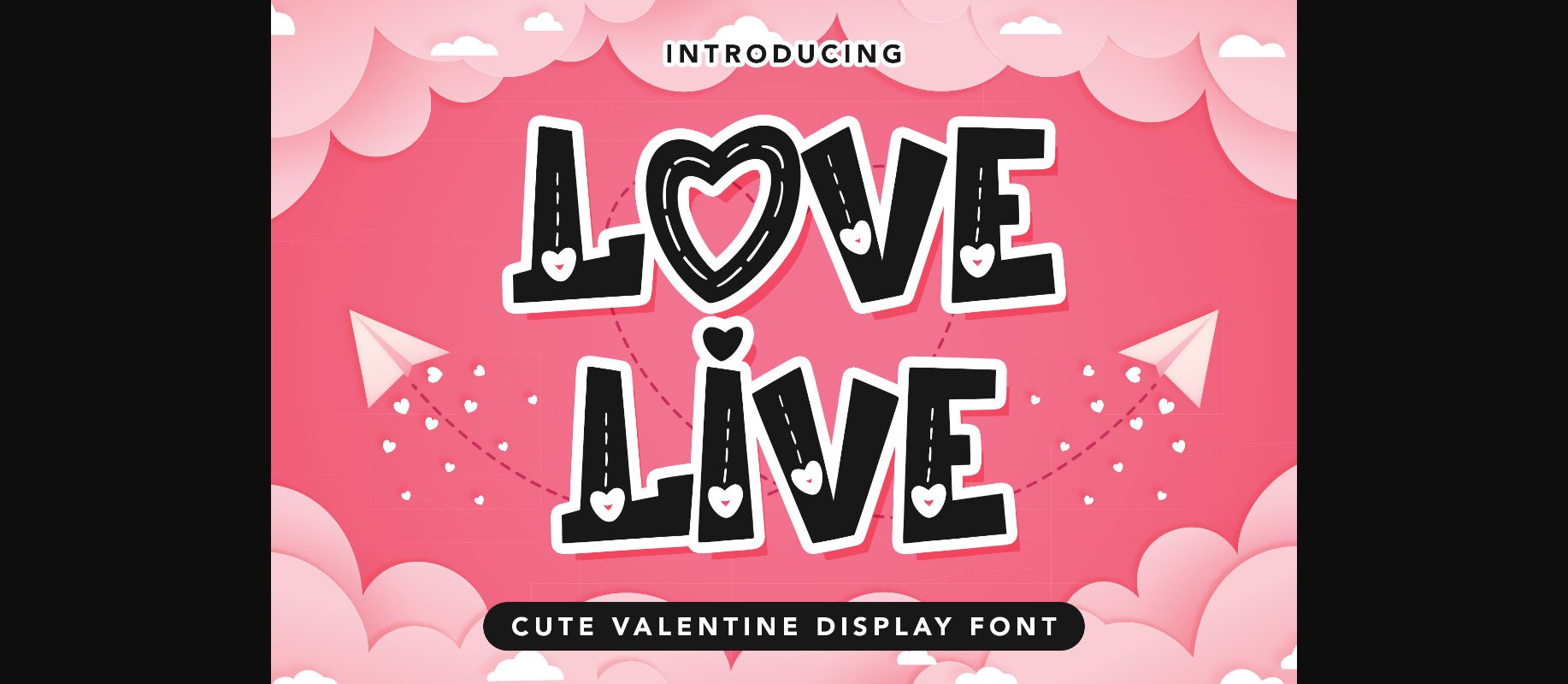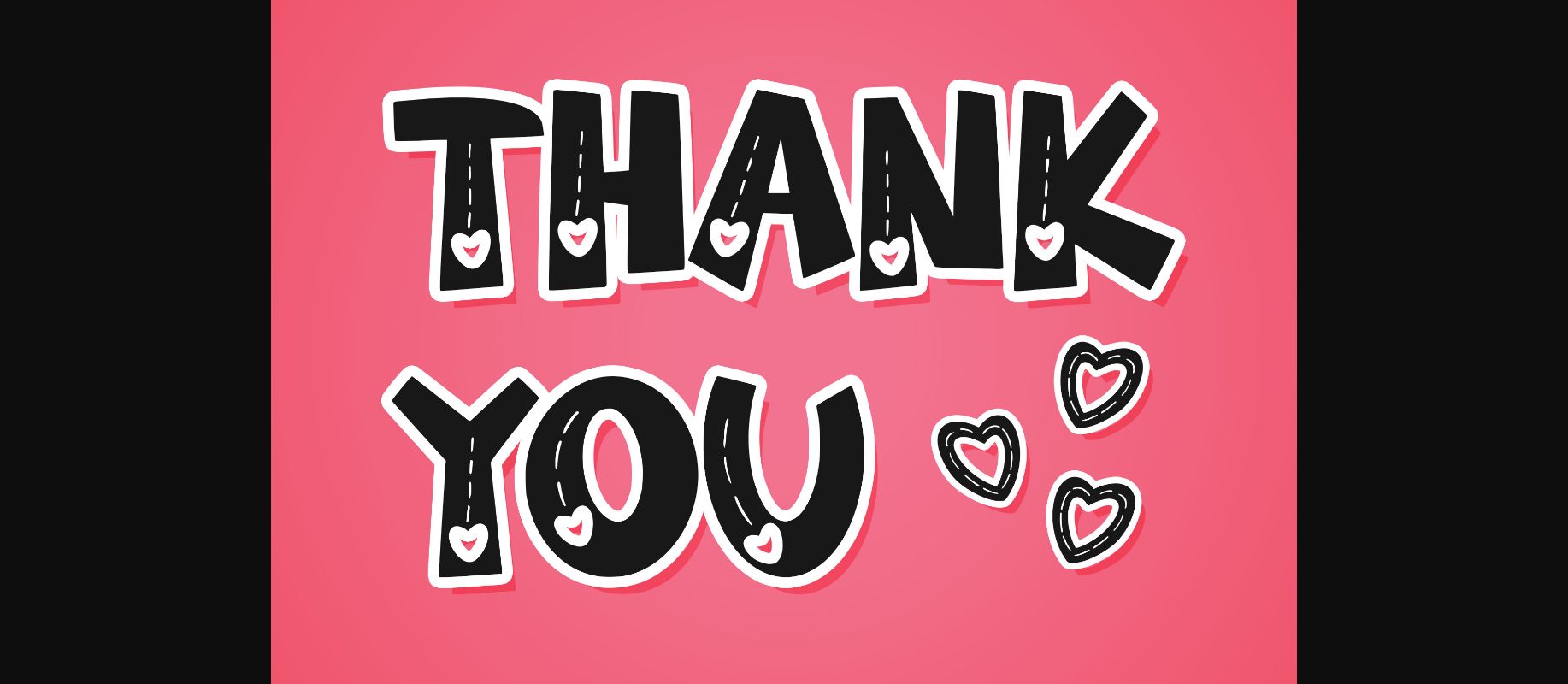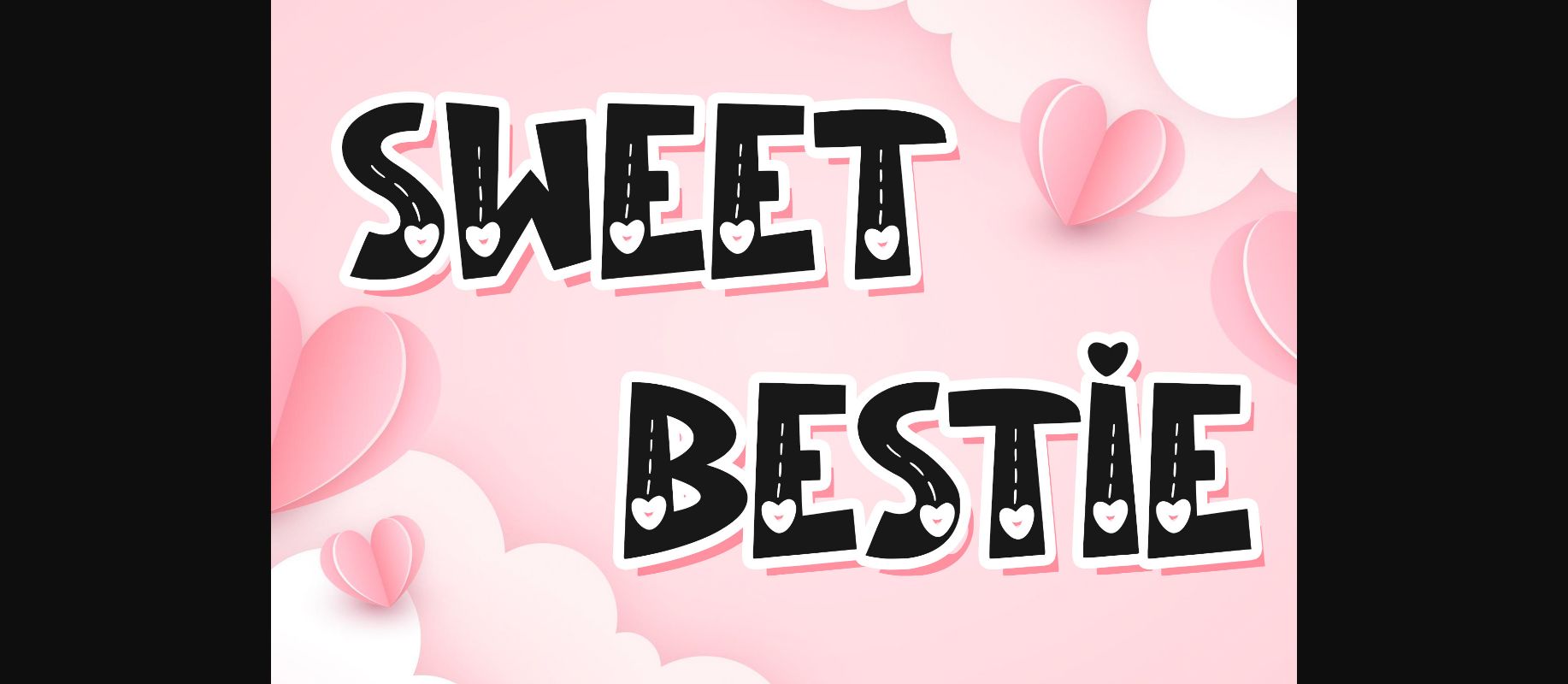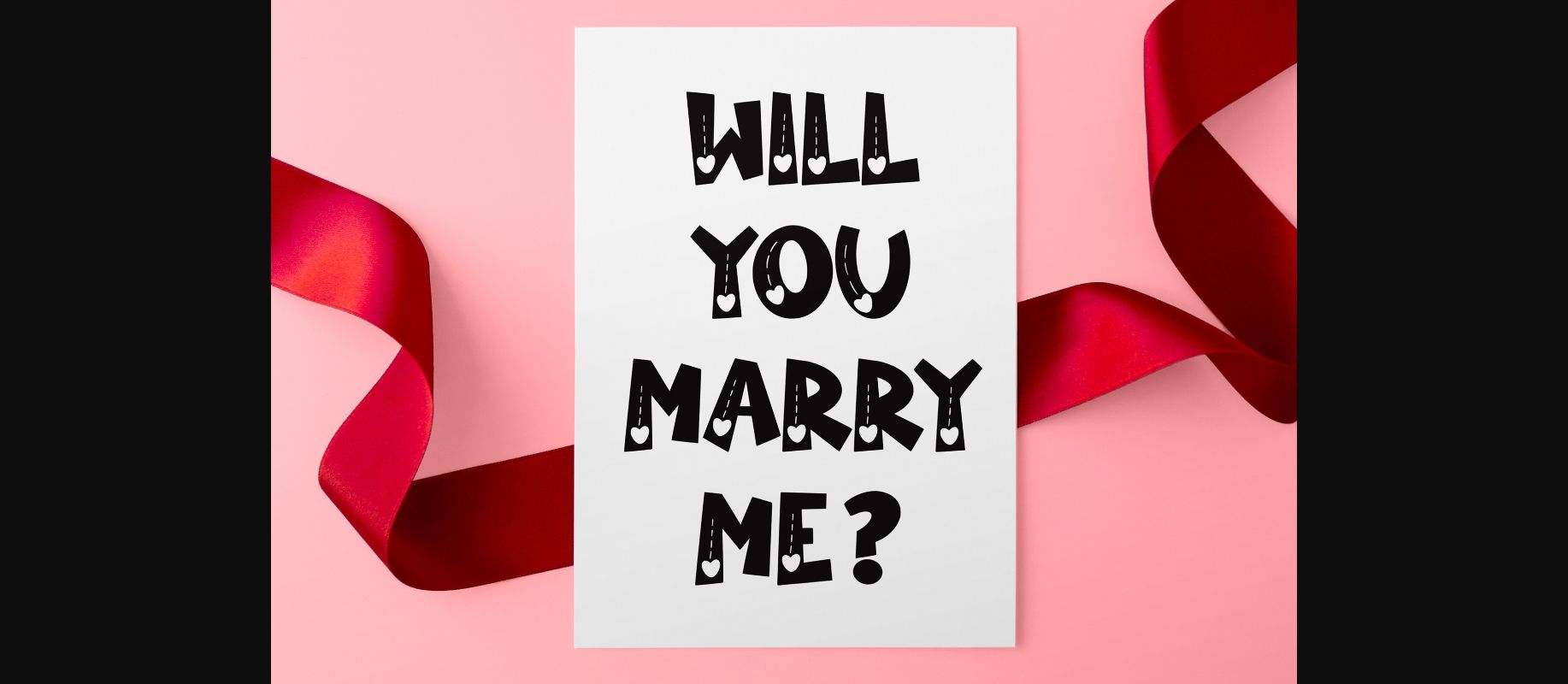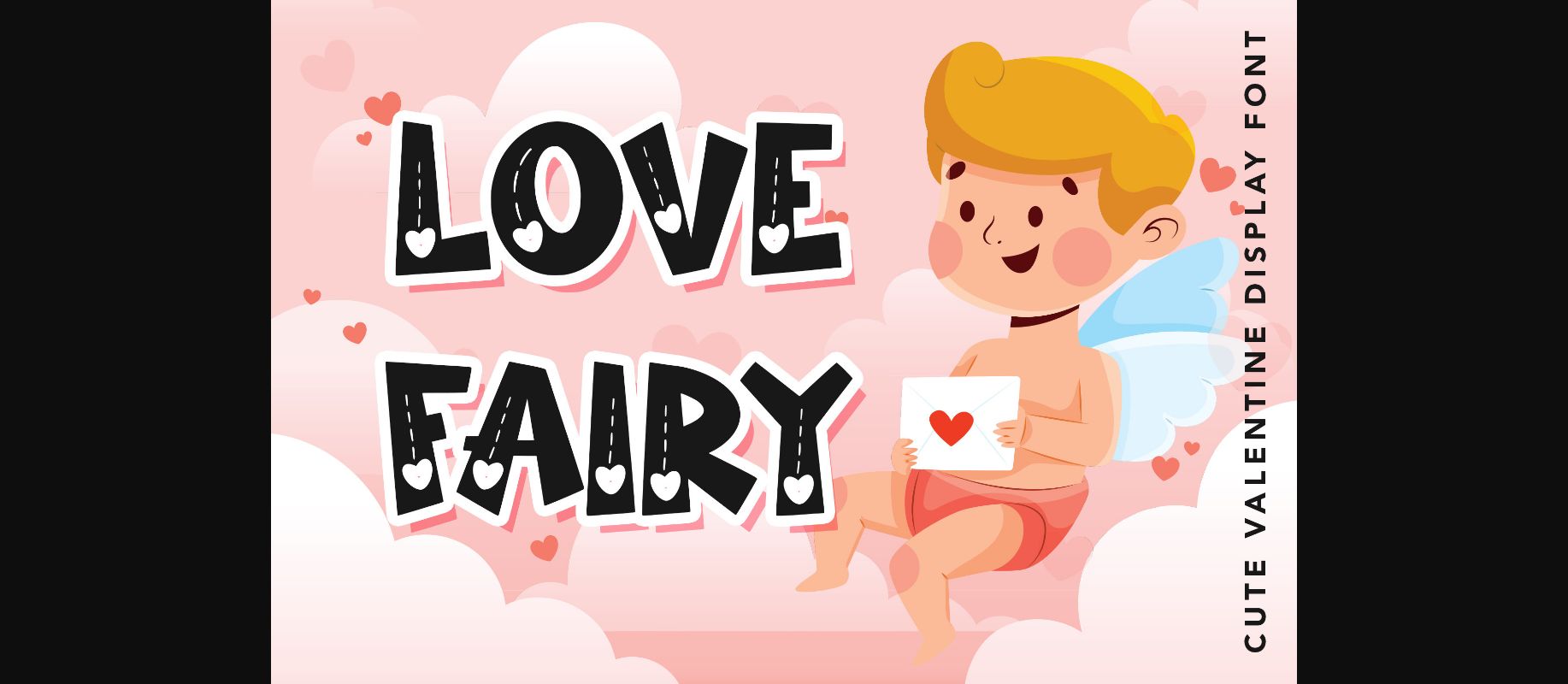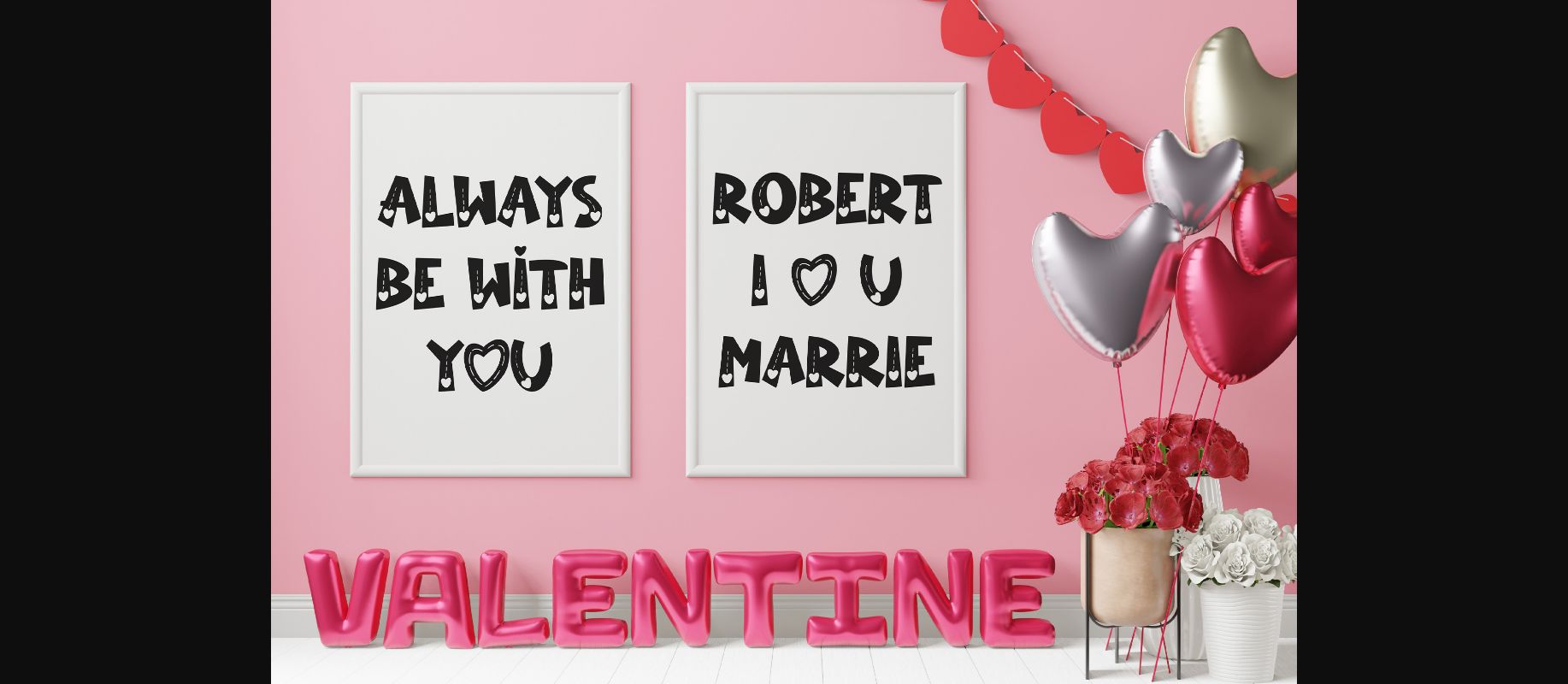
About Love Live Font
Love Live is a cute decorative font perfect for branding projects, logos, wedding designs, social media posts, advertisements, product packaging, product designs, labels, photography, watermarks, invitations, stationery, and many more! Add it to your creative projects, and be amazed by the results!